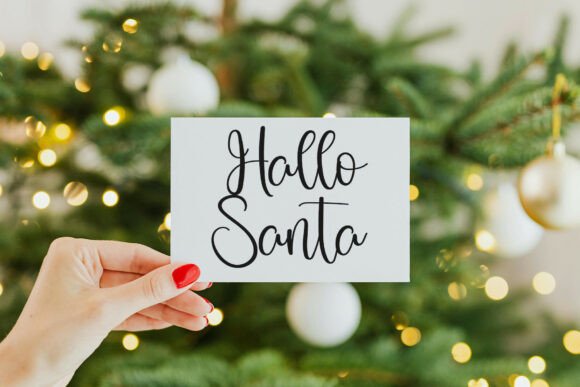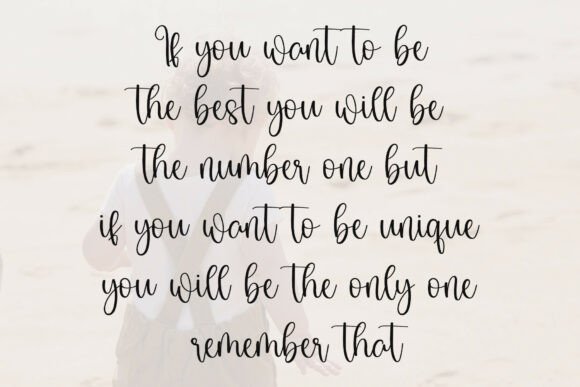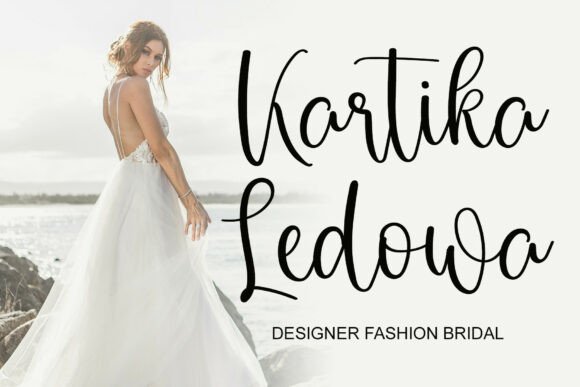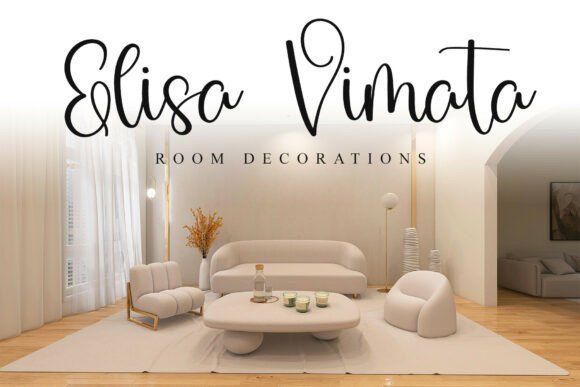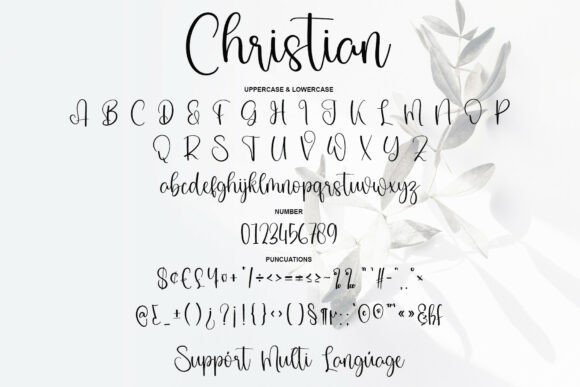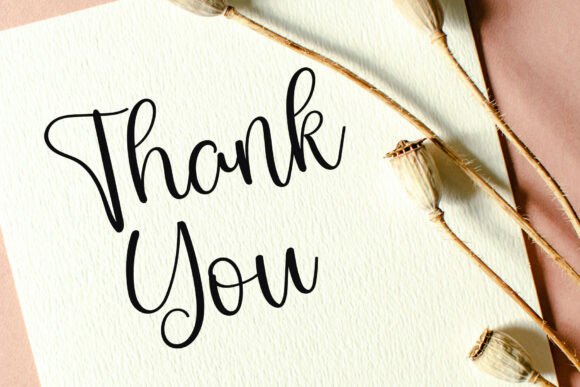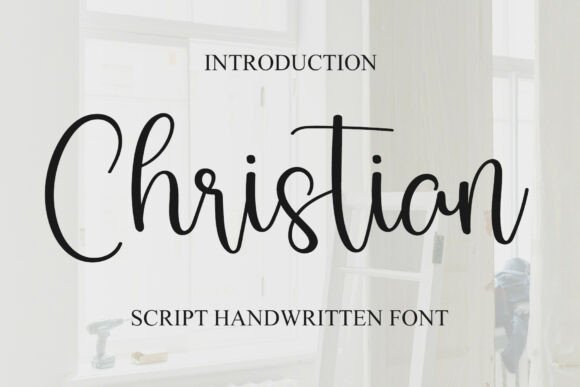
Introducing Christian Font: Elevate Your Designs with Timeless Elegance
In the world of typography, a font can make or break the aesthetic of a design project. For designers and crafters seeking a touch of sophistication and elegance, Christian Font is an exceptional choice. This stylish handwritten font boasts a contemporary atmosphere, impeccable form, and a balanced, varied design that enhances the beauty of any project.
Inspired by Timeless Classic Calligraphy
Christian Font draws inspiration from timeless classic calligraphy, infusing it with a modern twist. The result is a font that exudes refinement and poise, perfect for designers who aim to create visually stunning pieces. Whether you’re working on a branding project, packaging design, or a digital platform, Christian Font offers the versatility to elevate your work.
Key Features of Christian Font
- PUA Encoded: Christian Font is PUA (Private Use Area) encoded, allowing effortless access to an array of glyphs and ligatures. This feature enables designers to explore a wide range of creative possibilities, making it easier to craft unique and captivating designs.
- Balanced and Varied: The font’s balanced and varied design ensures that it can adapt to different contexts and applications. From headings and titles to body text, Christian Font maintains its elegance and readability.
- Contemporary Atmosphere: Christian Font seamlessly blends traditional calligraphic elements with a contemporary atmosphere, making it suitable for modern design projects that require a touch of classic sophistication.
Applications of Christian Font
Christian Font’s versatility makes it an excellent choice for various design projects, including:
- Branding and Logos: Create a lasting impression with a font that communicates elegance and refinement.
- Packaging Design: Elevate your product packaging with a sophisticated font that stands out on store shelves.
- Digital Platforms: Enhance the visual appeal of your website, social media, or digital marketing materials with a font that exudes professionalism and style.
- Stationery and Print Materials: Add a touch of classic elegance to your business cards, letterheads, and other print materials.
Tips for Using Christian Font Effectively
To make the most of Christian Font, consider the following tips:
- Pair with Complementary Fonts: Combine Christian Font with other fonts that complement its classic and elegant style. This will create a visually appealing contrast and add depth to your design.
- Experiment with Ligatures: Take advantage of Christian Font’s PUA encoding to explore the various ligatures and glyphs available. This will help you create unique and captivating text arrangements.
- Adjust Font Sizes: Christian Font’s balanced design ensures that it remains legible at various font sizes. Experiment with different sizes to find the perfect balance for your design.
Christian Font is a stylish and elegant handwritten font that brings a touch of timeless classic calligraphy to modern design projects. With its PUA encoding, balanced and varied design, and contemporary atmosphere, it’s an excellent choice for designers and crafters seeking to elevate their work. By incorporating Christian Font into your design arsenal, you’ll be able to create visually stunning pieces that exude sophistication and refinement.